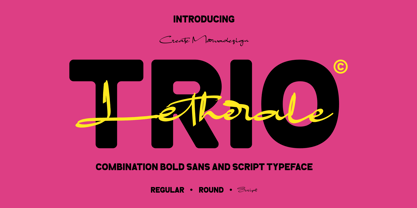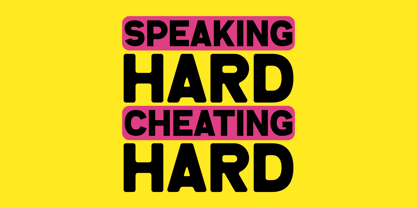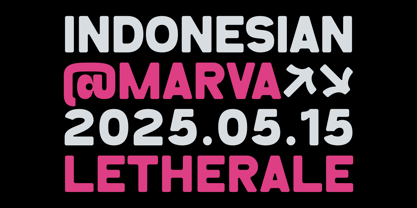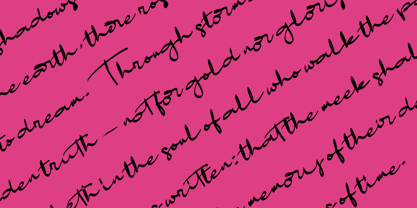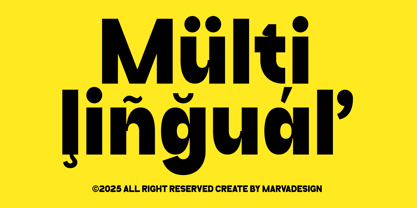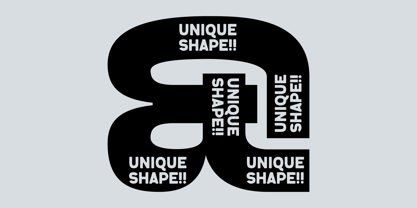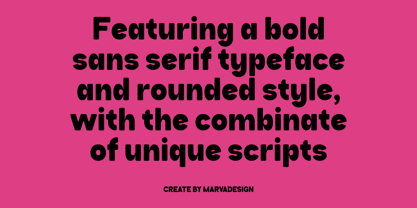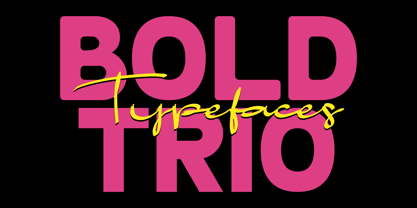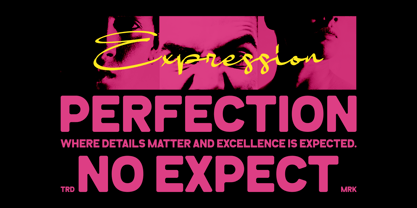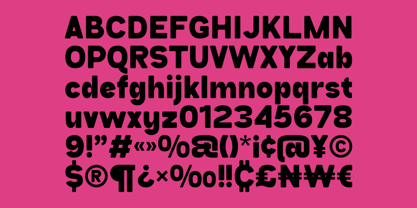
Letherale
von Marvadesign
Die Schriftfamilie Letherale wurde von Febrie Setiawan entworfen und von Marvadesign veröffentlicht. Letherale enthält 3 Stile und Familienpaketoptionen. Mehr über diese Familie
Introducing Font Trio Family Bold
Letherale is a distinctive and modern typeface that combines three bold, rounded and expressive script sans serif visual styles to create a versatile and dynamic typographic system. Designed by Marvadesign, the typeface has a strong and confident sans serif base with smooth, rounded edges, making it ideal for impactful headlines and branding. Its signature touch lies in the stylized handwritten script, which contrasts beautifully against the geometric weight of the sans elements, offering elegance and personality. The fusion of styles in Letherale allows for creative combinations in editorial design, posters, packaging and digital media, while maintaining clarity and visual appeal.
Designer: Febrie Setiawan
Foundry: Marvadesign